number font style is an essential aspect of graphic design that can significantly impact the overall design of a project. The right number font can make a design appear more professional, modern, or playful, depending on the style that is chosen. Choosing the right number font can be challenging, but with the right knowledge and understanding of different number font styles, it can be made much simpler.
Serif Number Fonts
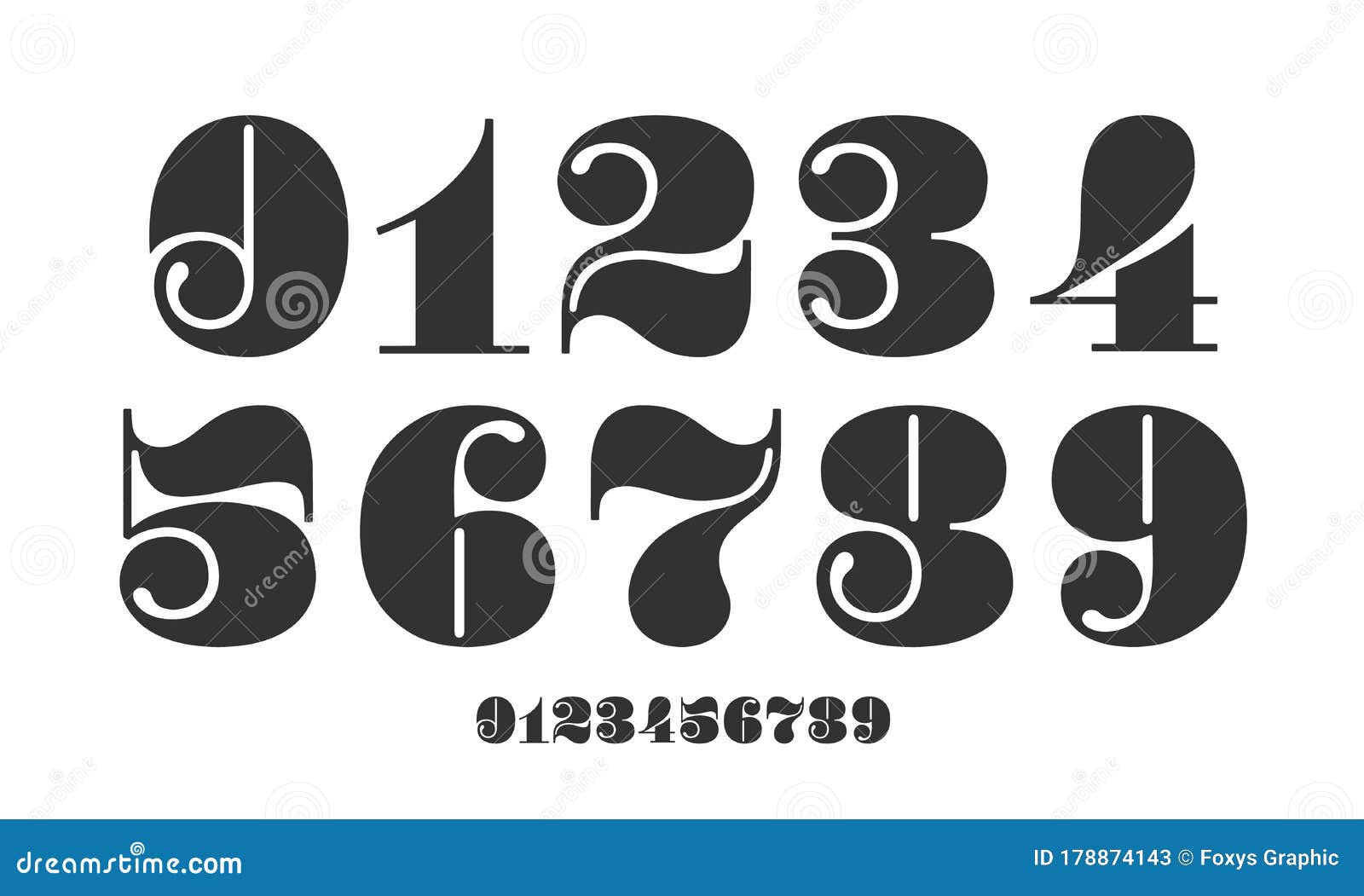
Serif number fonts are a classic style that has been used for many years. This style features small lines at the ends of letter strokes, which are known as serifs. Serif fonts are elegant and sophisticated and are often used in print media, such as magazines and books. When using serif number fonts, it is essential to choose a style that is not too decorative or ornate, as it can make the numbers difficult to read.
Sans-Serif Number Fonts
Sans-serif number fonts do not have the small lines at the end of letter strokes that serif fonts have. This style is clean and modern and is often used in digital media, such as websites and social media posts. Sans-serif fonts are easy to read, and their simplistic style allows them to pair well with other fonts, making them a versatile option.
Script Number Fonts
Script number fonts are a decorative style that mimics handwriting. This style is often used on invitations or in designs that require a more elegant and sophisticated look. However, script fonts can be challenging to read, so it is essential to use them sparingly and in large sizes.
Display Number Fonts
Display number fonts are a bold and attention-grabbing style that is often used in headlines or large lettering. This style is designed to be noticed and can add a playful or dramatic element to a design. Display fonts are typically used in larger sizes and should not be used for small text or paragraphs.
In conclusion, number font style is a critical element of graphic design that can make or break a design. Understanding the different styles of number fonts, including serif, sans-serif, script, and display fonts, can help designers choose the right style for a project. Ultimately, choosing a font that is easy to read, matches the overall design, and is appropriate for the medium being used is essential for creating a successful design.